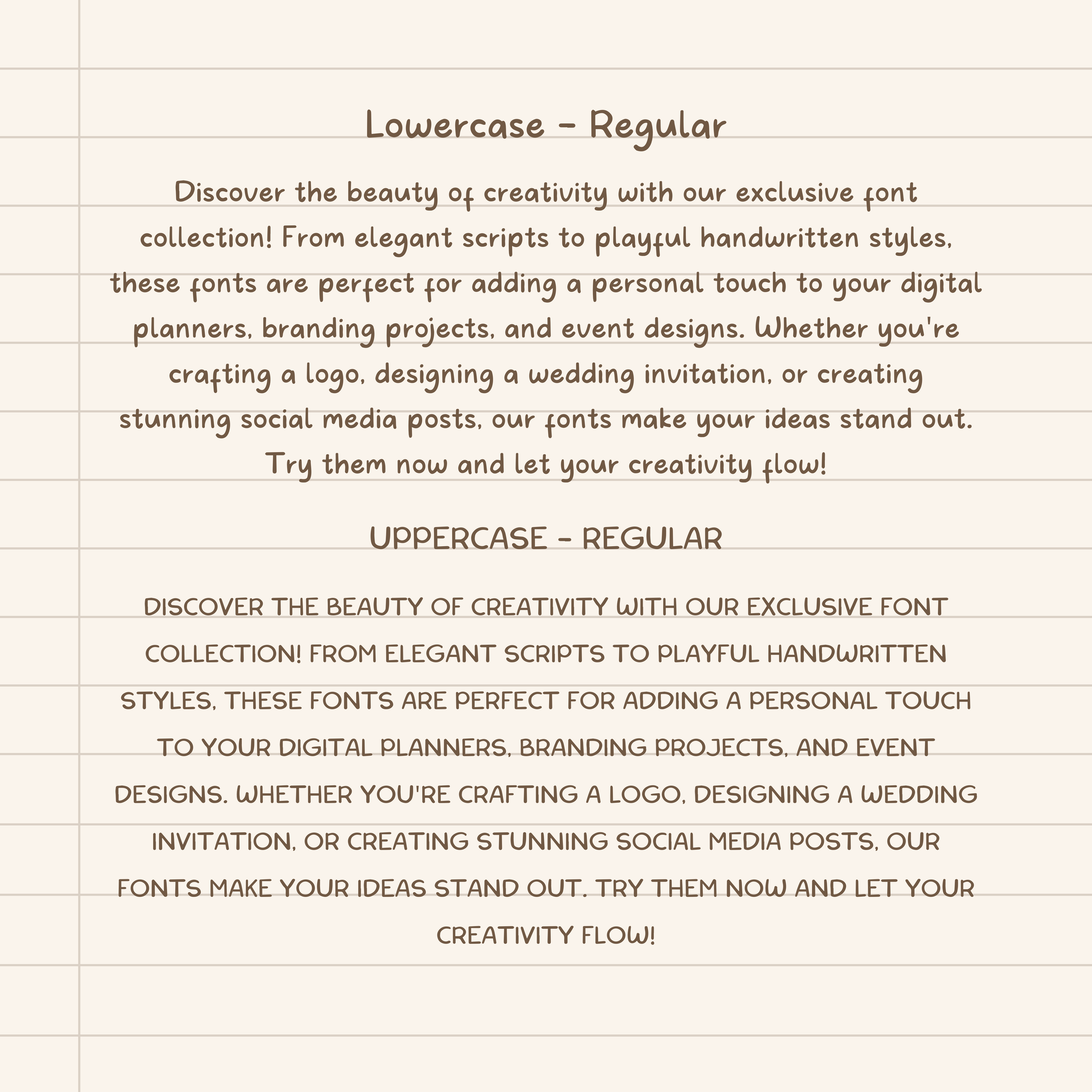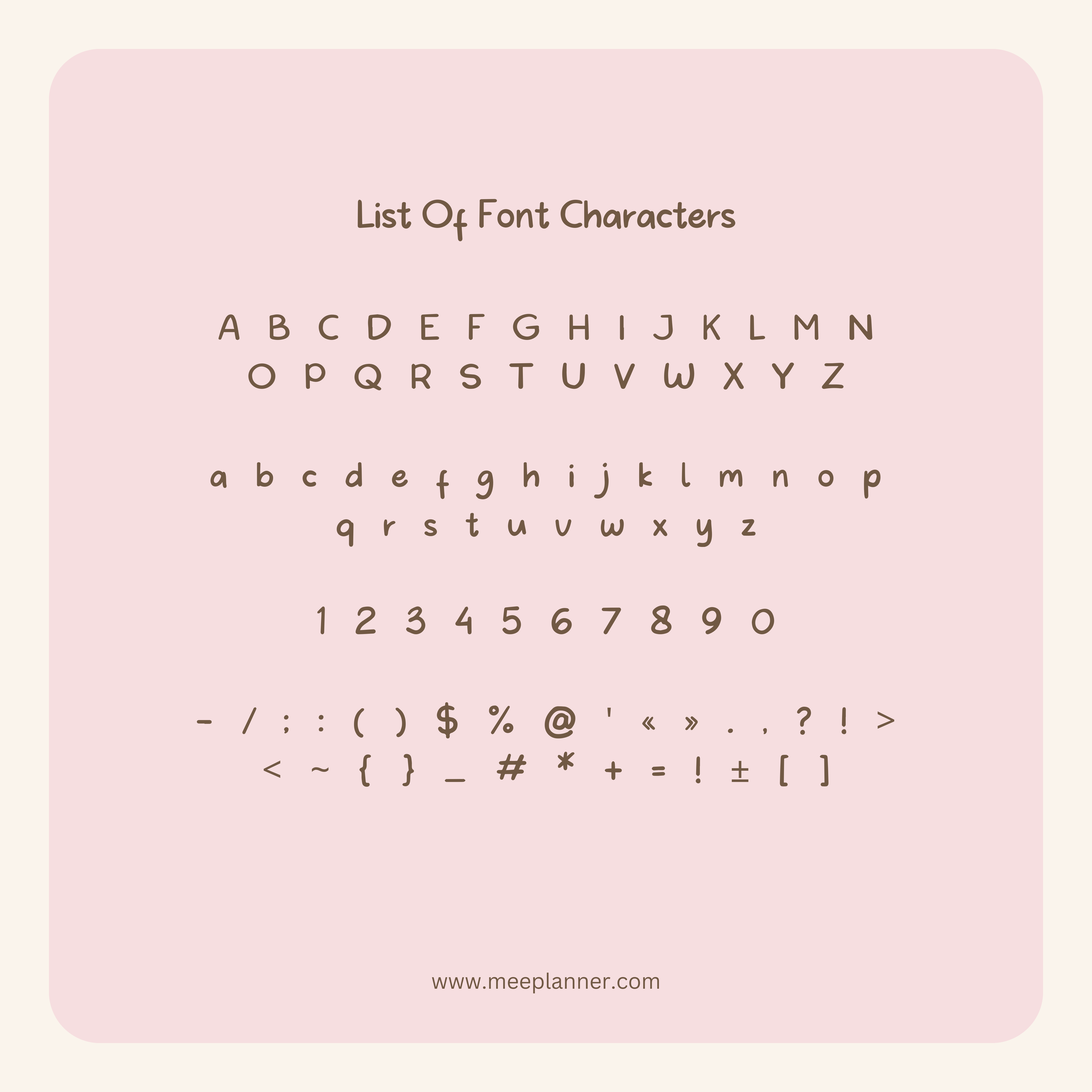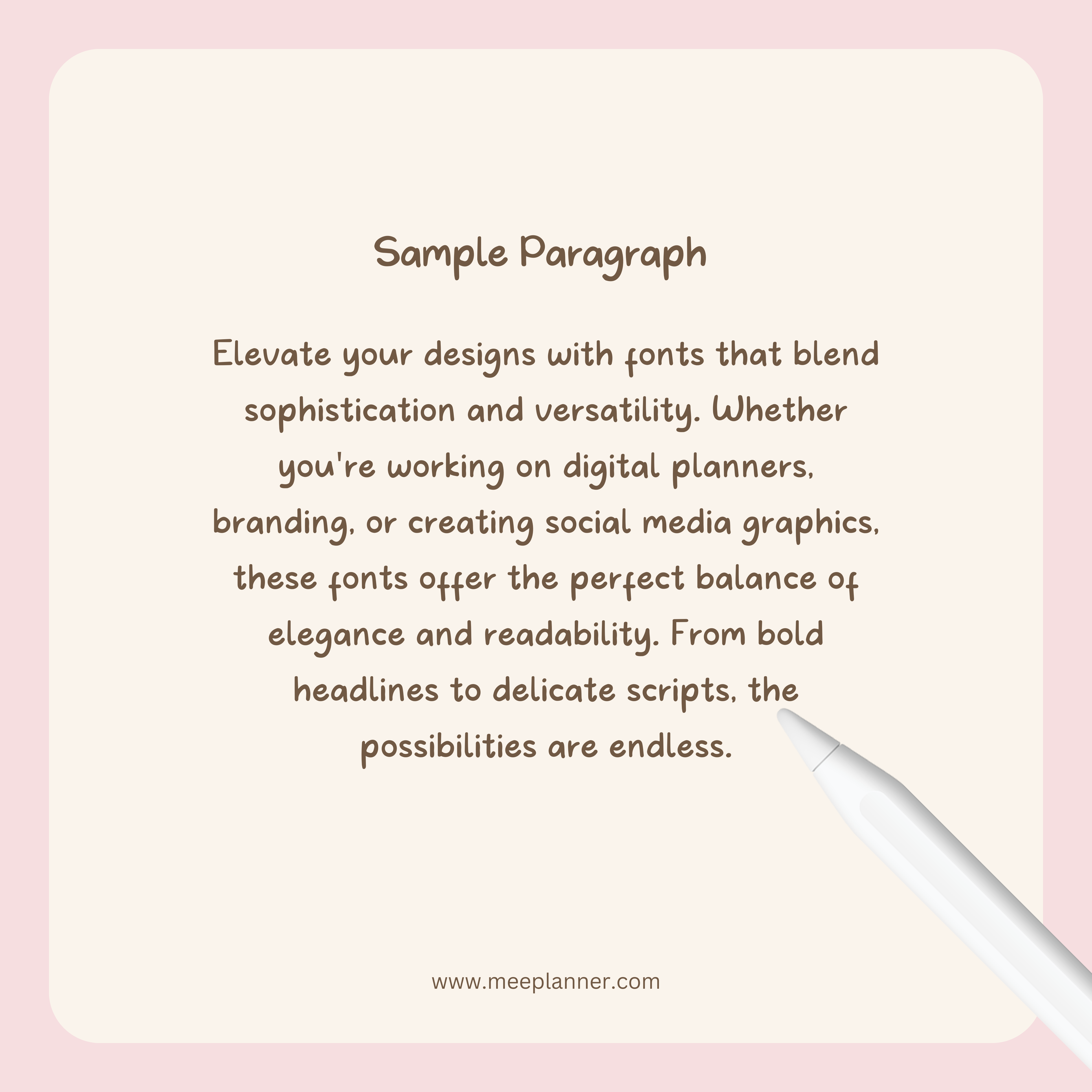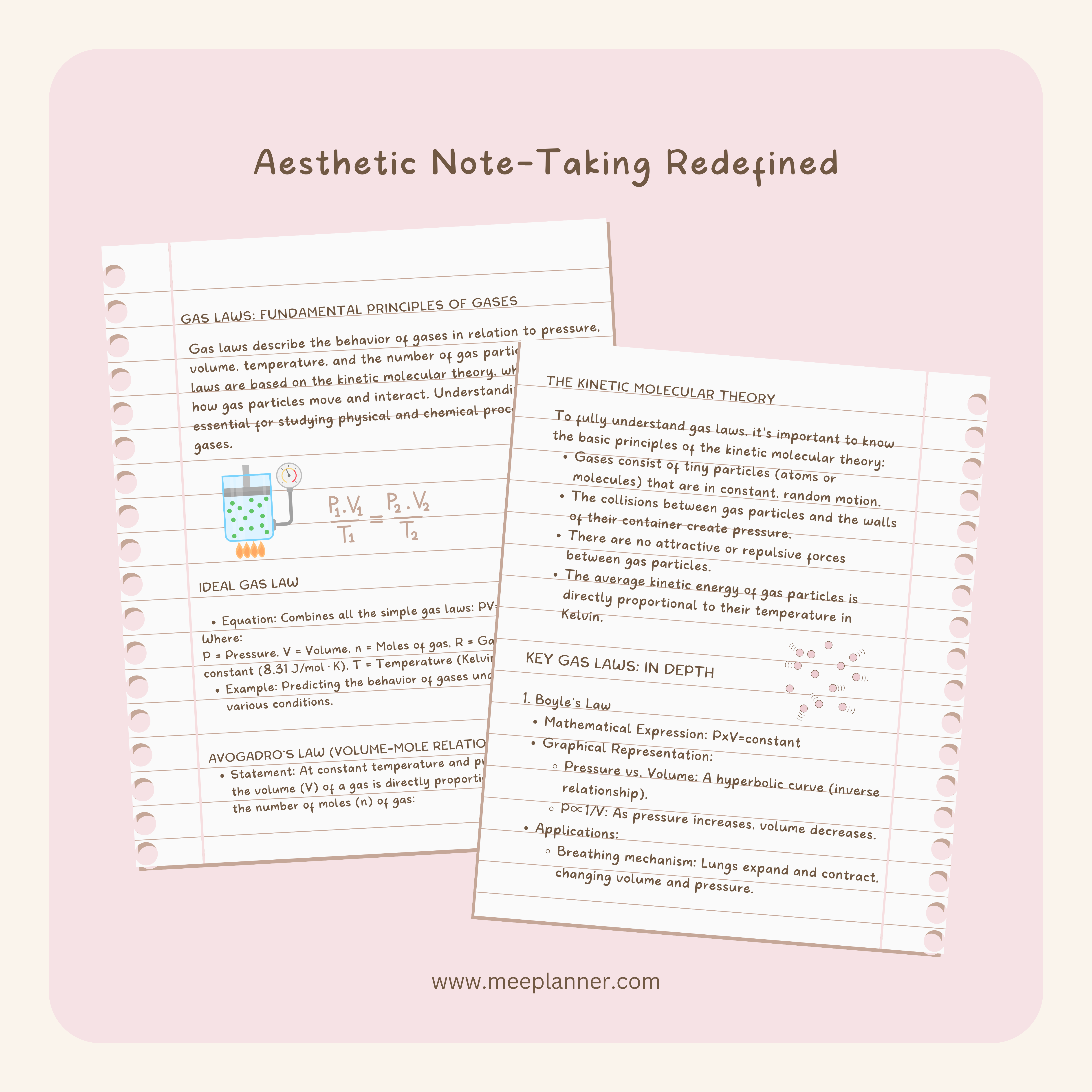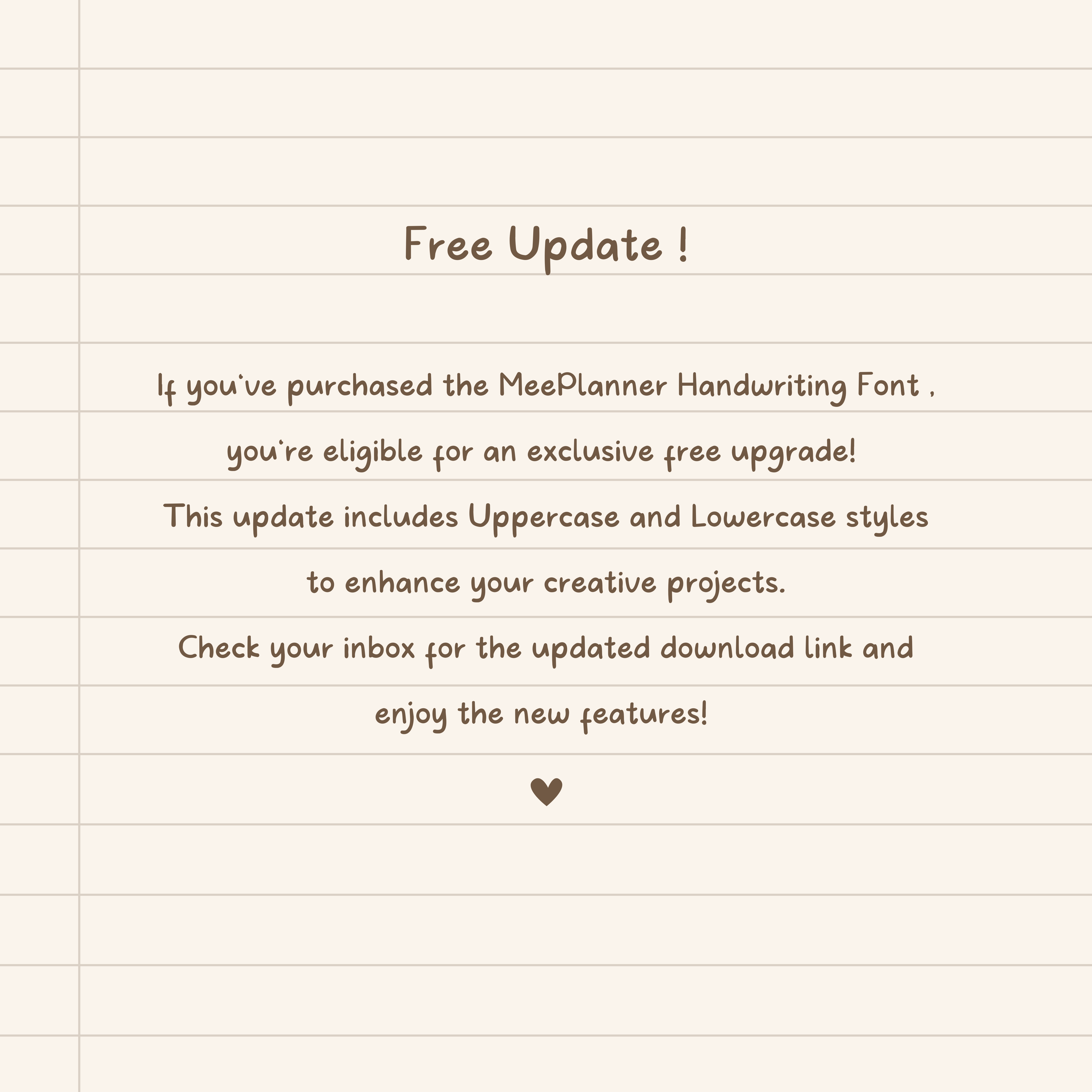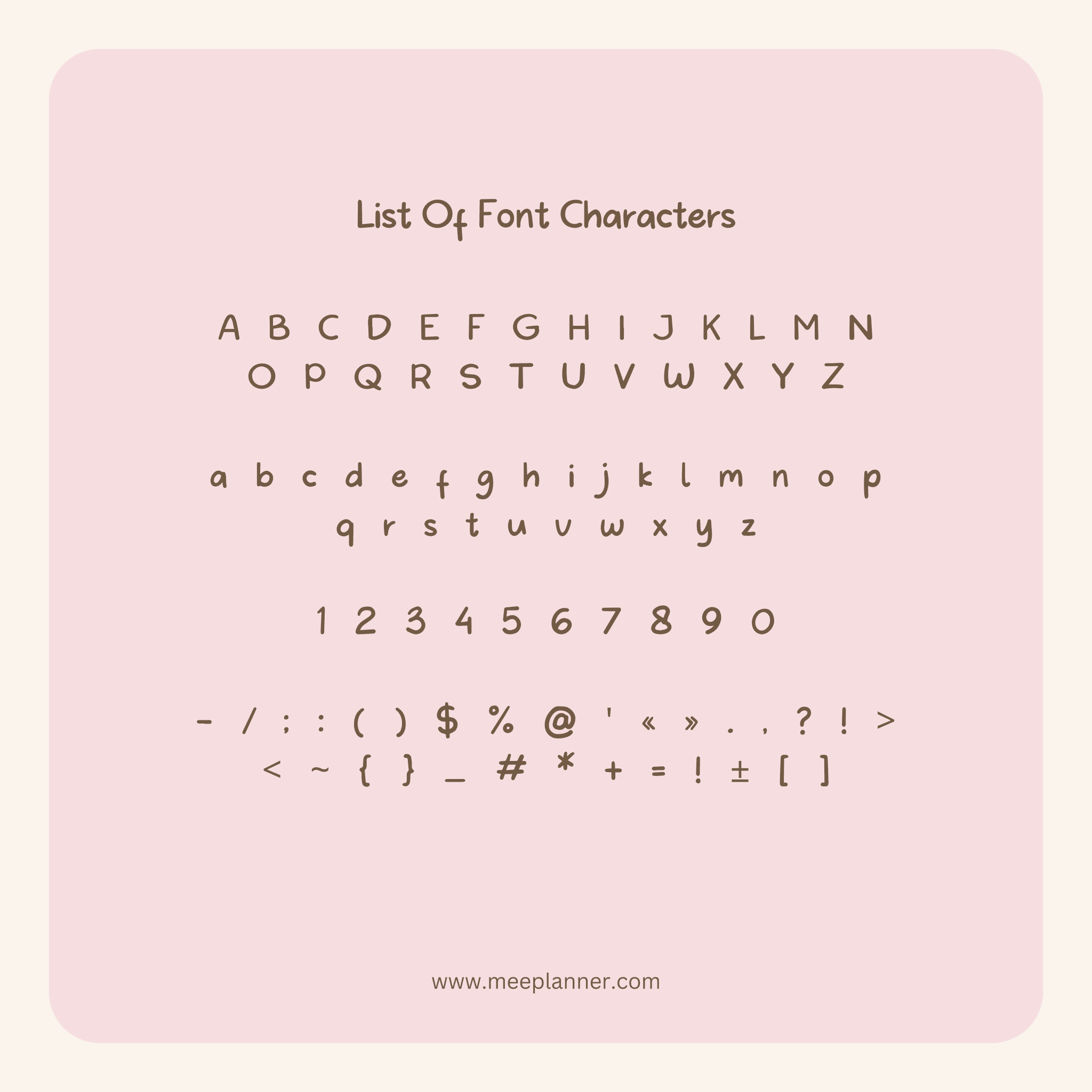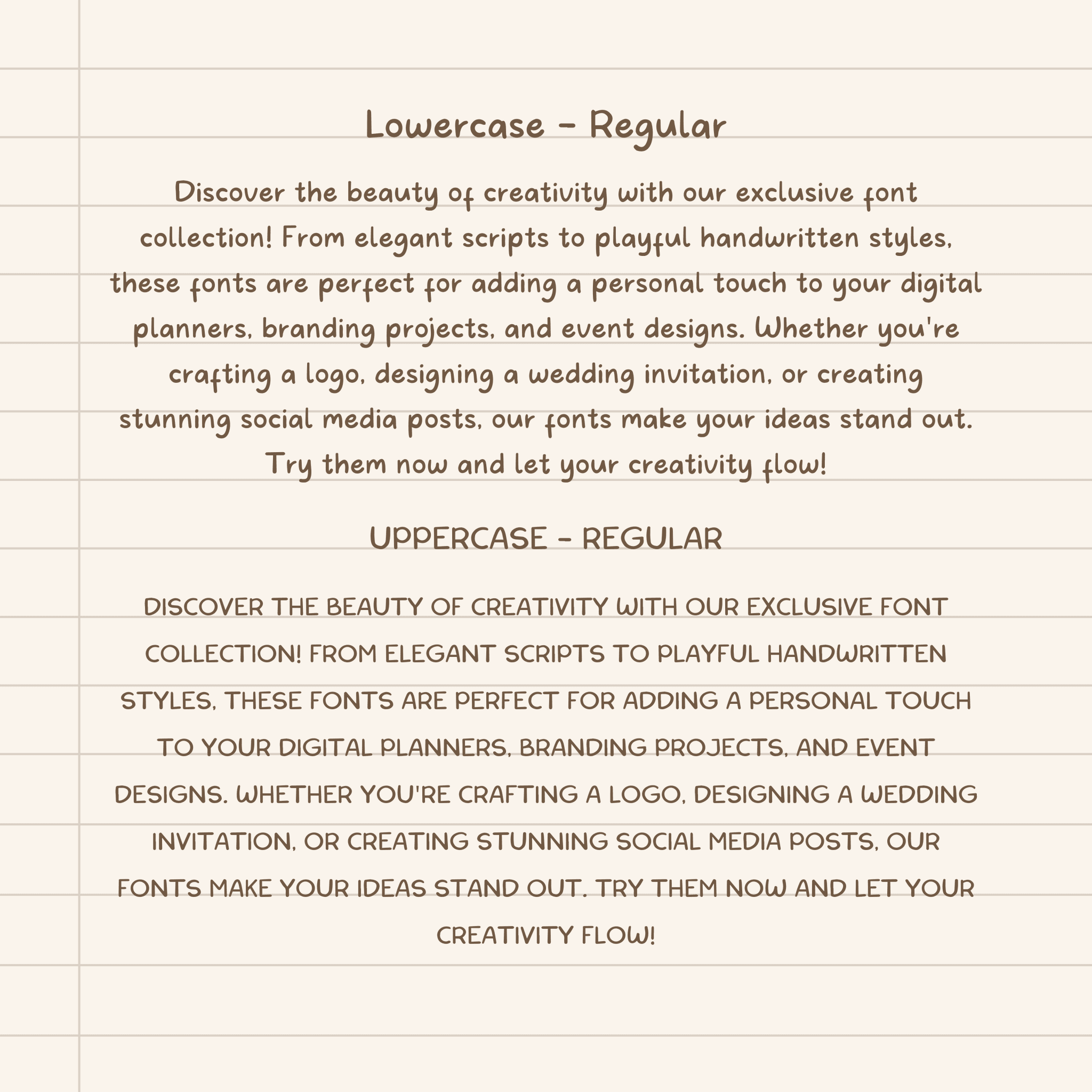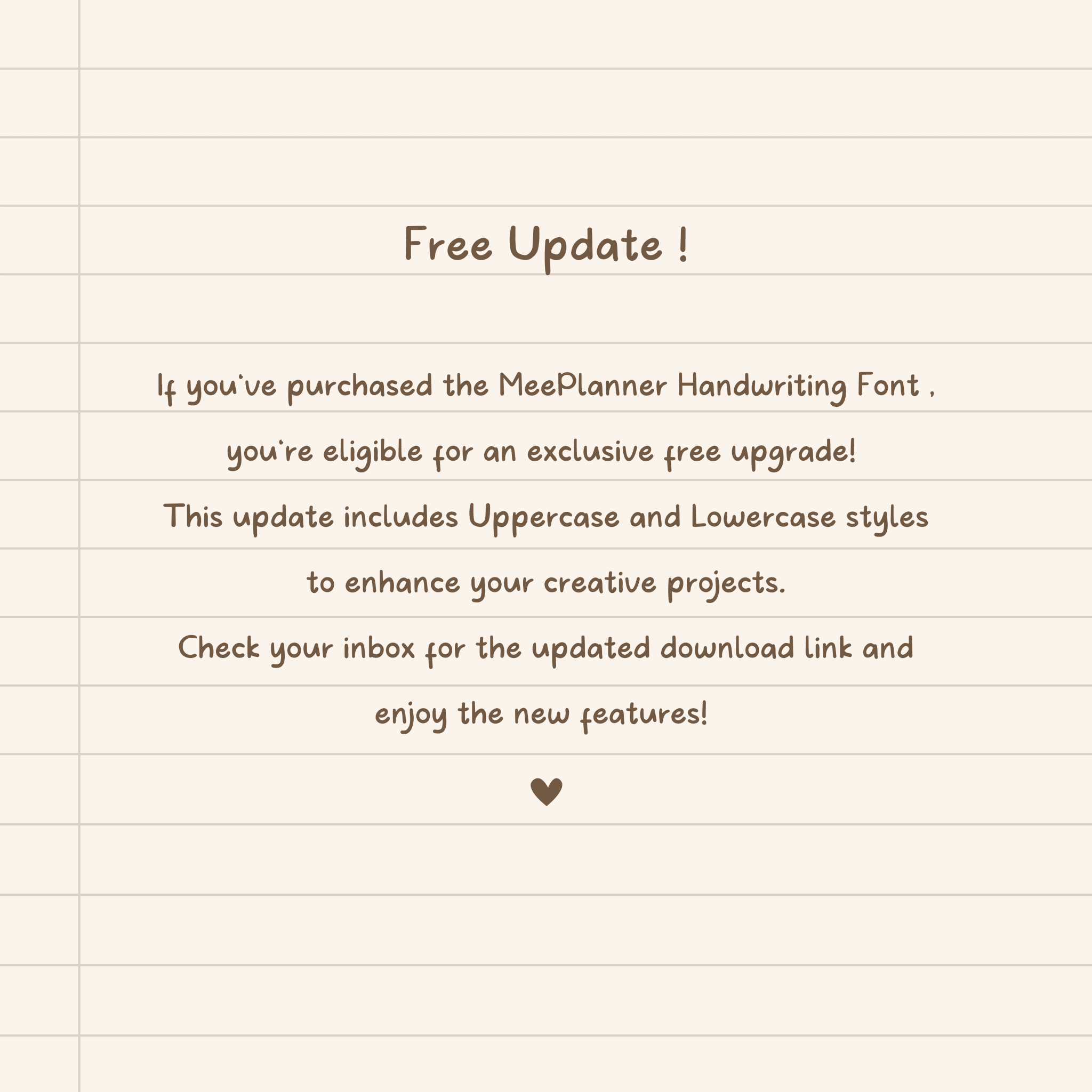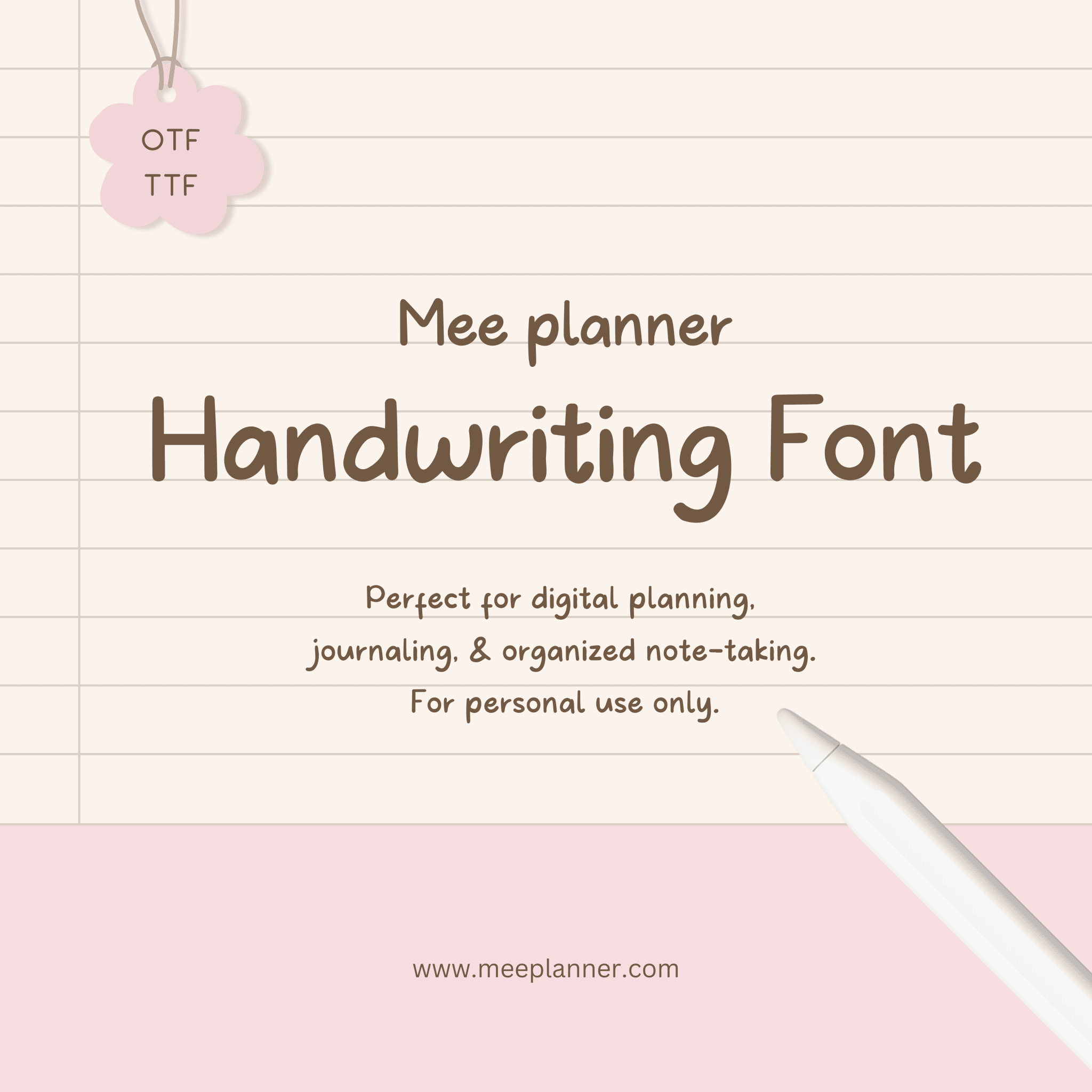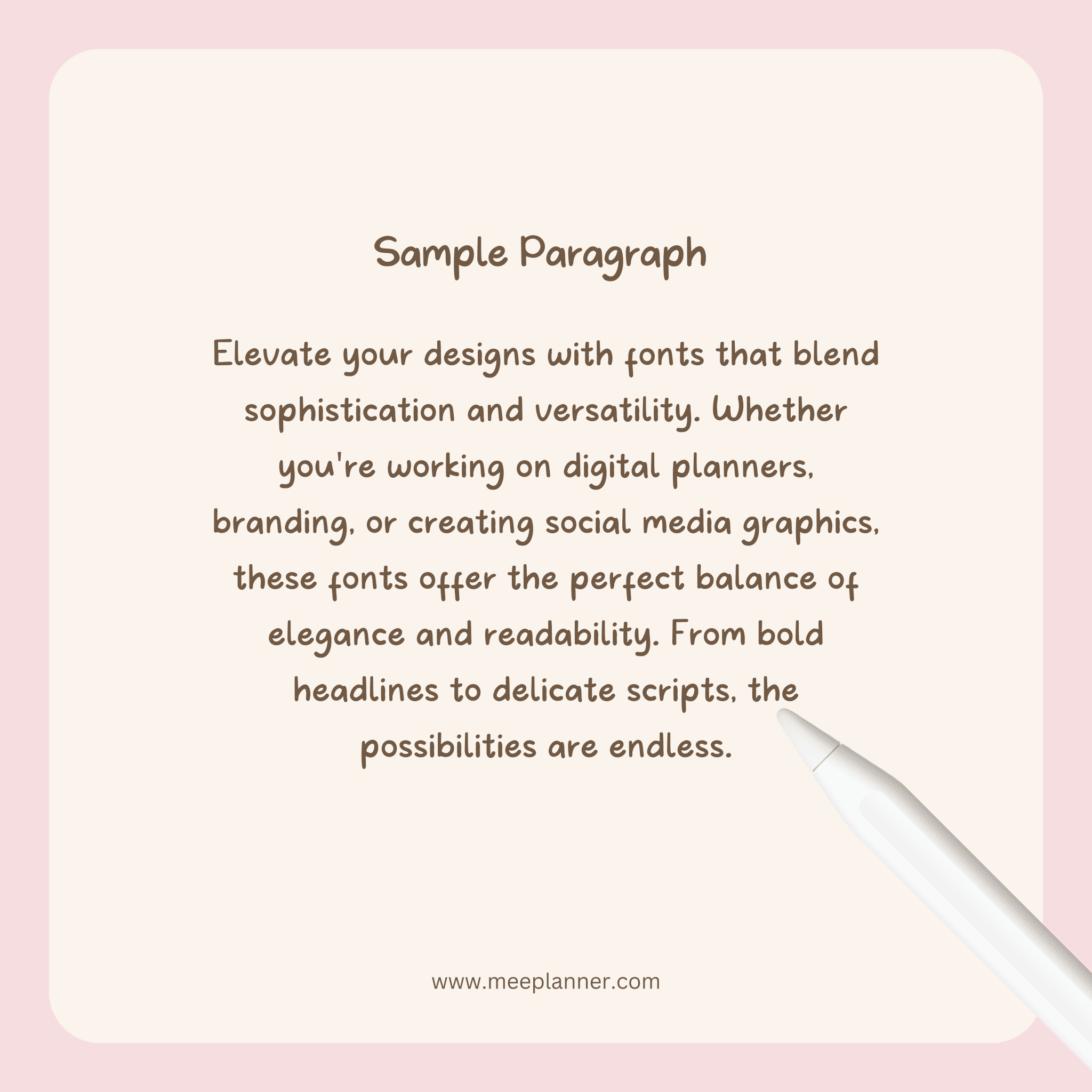
Aesthetic handwriting font overview
The Aesthetic Handwriting Font is a digital typeface designed to mimic the natural flow and artistic charm of handwritten text. Perfect for various creative projects, this font captures an authentic feel that adds a personalized touch to your work. Whether you're designing invitations or enhancing social media content, it provides a blend of elegance and authenticity.
Ideal use cases and features
This font is ideal for branding, graphic design, and decorative uses such as posters and greeting cards. It includes multiple style variations, ensuring versatility in its application. Furthermore, the legibility at different sizes makes it a suitable choice for both printed materials and digital formats.